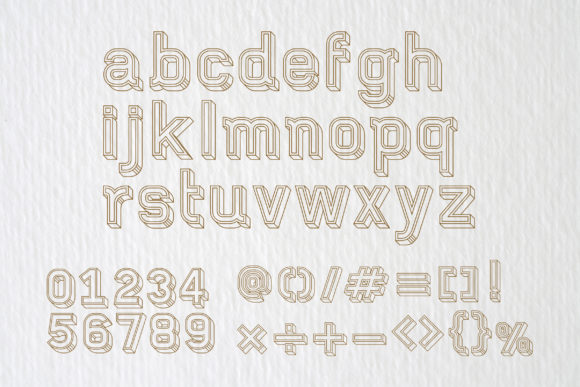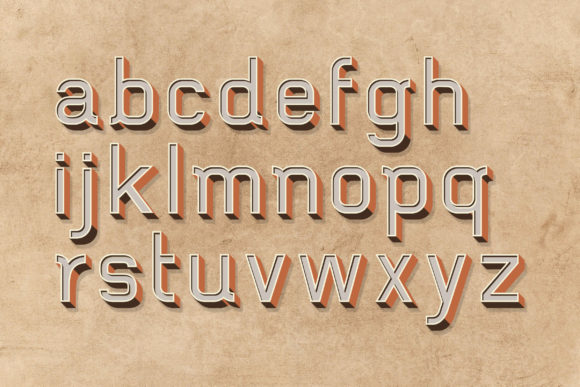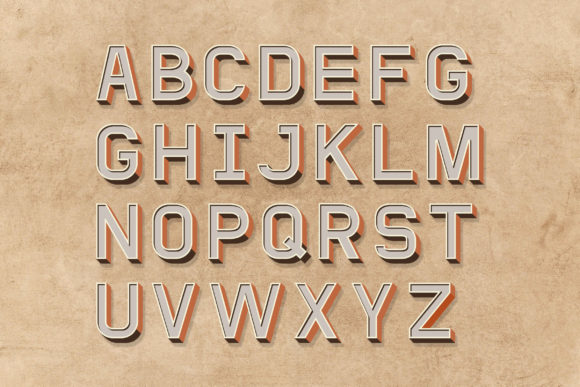
Step into the World of 3D Graphics with 3d Retro Font
There’s nothing quite like the rush of creativity that comes with staring at a blank canvas, waiting for inspiration to strike. It’s that moment when your imagination runs wild, and you envision the perfect design – the one that will make your audience stop, stare, and remember. For designers, this moment is what drives us to push the boundaries of innovation and artistry.
That’s where the 3d Retro Font comes in – a game-changing display font that adds a touch of nostalgia and sophistication to your designs. This 3D display font is designed to bring a sense of depth and dimension to your work, making it perfect for any project that requires a unique visual appeal. With the 3d Retro Font, you’ll have endless possibilities to explore and experiment with different styles, making it an invaluable asset for any designer looking to elevate their craft.
Key Features of 3D Retro Font
- Unique Characteristics: This font features a distinctive 3D retro style, with bold lines, rounded edges, and a nostalgic feel that’s perfect for vintage-themed designs.
- Font Style: 3D Retro Font comes in a variety of font styles, including bold, italic, and regular, giving you the flexibility to customize your designs as needed.
- Legibility: Despite its unique 3D style, 3D Retro Font is highly legible, making it suitable for a wide range of applications, from body text to headings and titles.
3D Retro Font Review
Overall, I think 3D Retro Font is a cool, unique font that can add some visual interest to your designs. Here are some things that work well: ✨
- Unique aesthetic: This font has a distinct, retro-futuristic vibe that can be really eye-catching.
- High-quality design: The font is well-designed and looks great at various sizes and resolutions.
- Wide compatibility: It seems to work well across different platforms and devices.
- Limited legibility: At small sizes, the font can be a bit difficult to read, especially for those with visual impairments.
- Not ideal for large blocks of text: Due to its unique design, this font is best used for short phrases or titles, rather than large paragraphs of text.
Overall, I think 3D Retro Font is a great choice for designers who want to add some visual flair to their projects. Just be mindful of its limitations, and use it sparingly to avoid overwhelming your audience.
For the best results, use the 3D Retro Font for titles, headings, and other prominent text elements.
It’s also a great font for retro-themed designs, such as posters, flyers, and social media graphics.